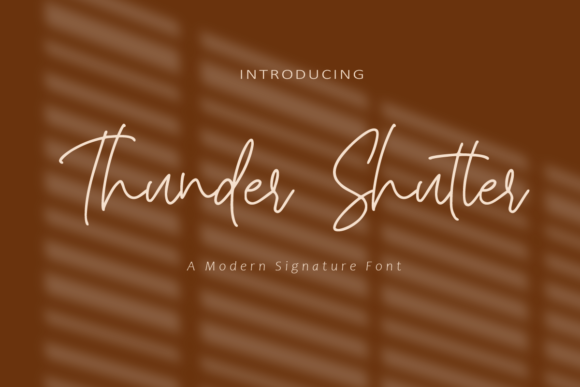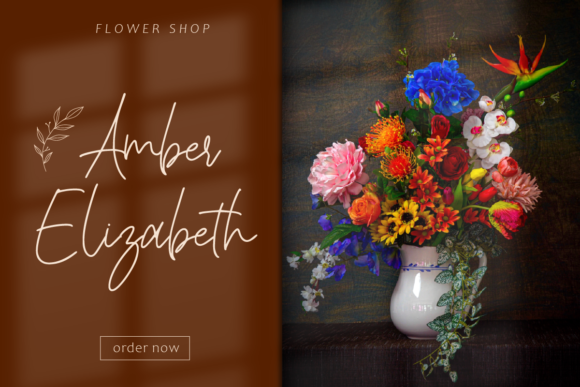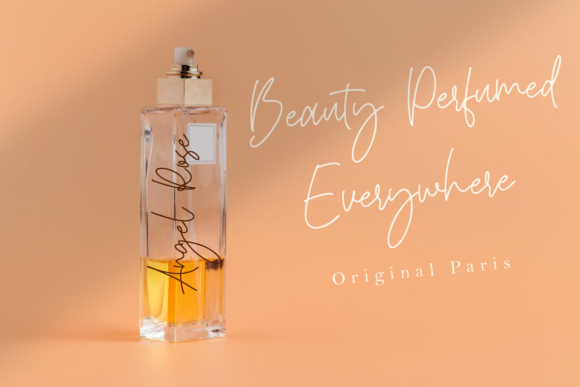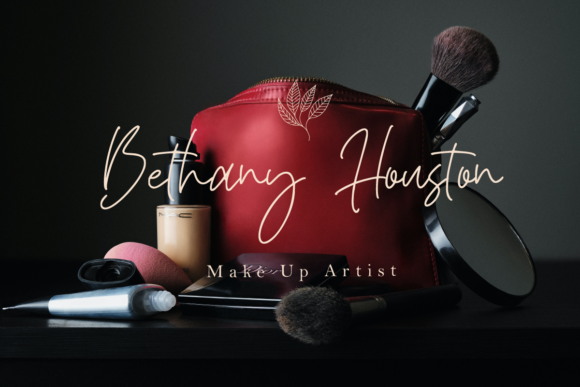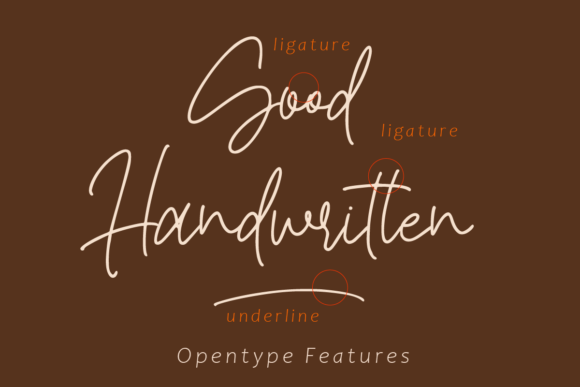
Thunder Shutter Font
About Thunder Shutter Font
Thunder Shutter is a chic, refined script font that emanates sophistication and elegance. Its stylish alternates and ligatures make this font the perfect match for any project.